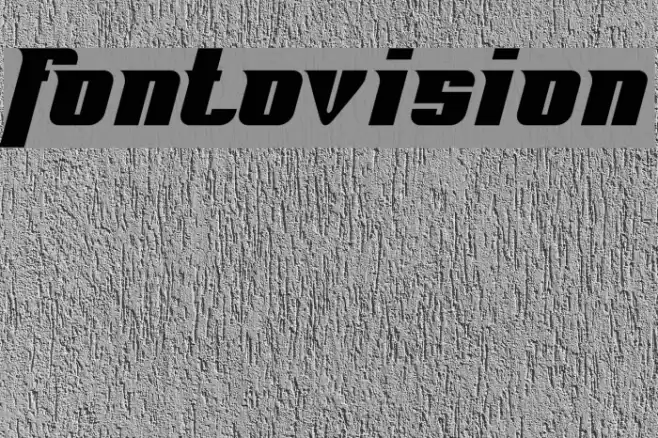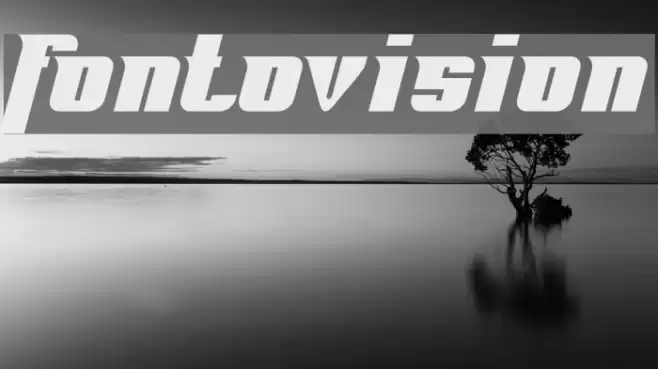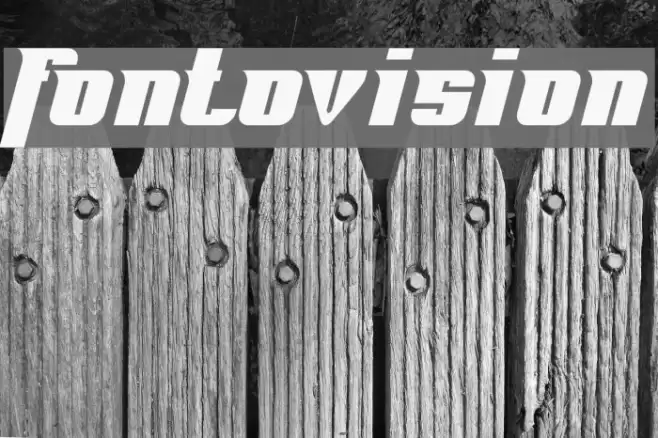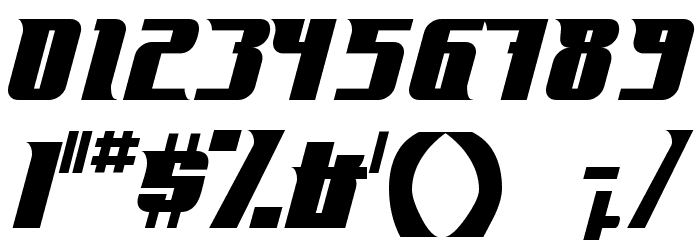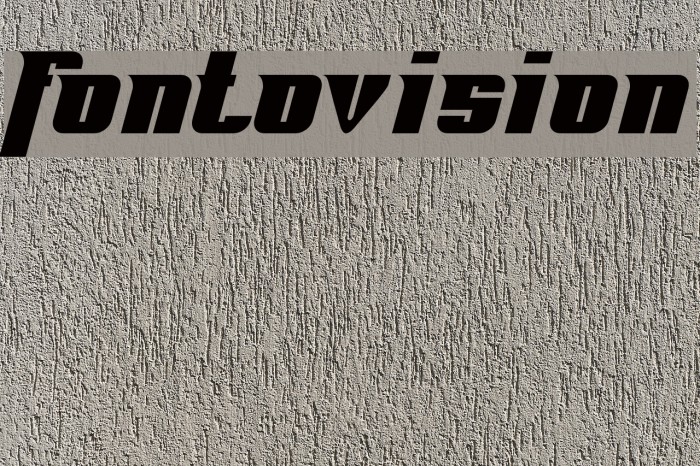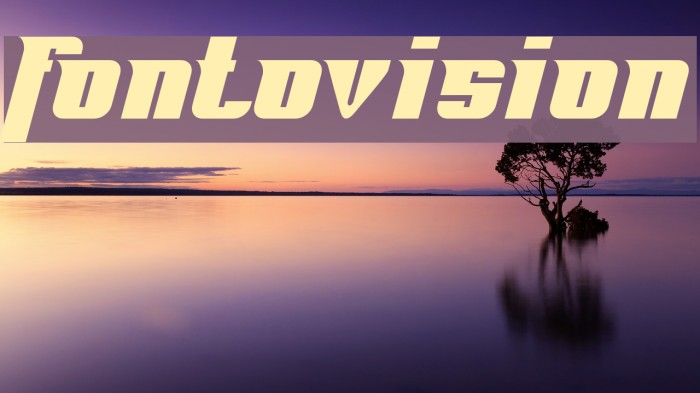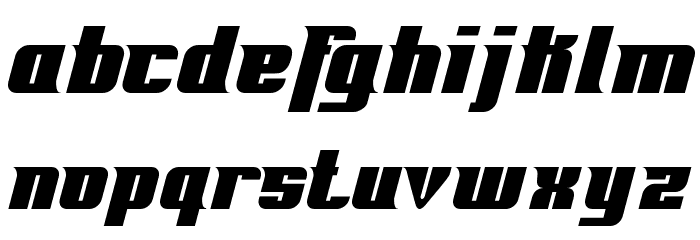
Fontovision Font
Fontovision Description
This font features a bold, angular design with a strong presence. The characters are sharply cut with a distinct slant, giving them a dynamic and energetic feel. The uppercase and lowercase letters maintain a consistent style, with the lowercase letters mirroring the boldness of their uppercase counterparts. The numbers are equally robust, with a geometric influence that adds to the font's modern appeal. Special characters are designed to match the overall aesthetic, ensuring a cohesive look across all text elements. The font's unique style makes it suitable for projects that require a strong visual impact.
A bold, angular font with a dynamic, modern style from Military fonts.